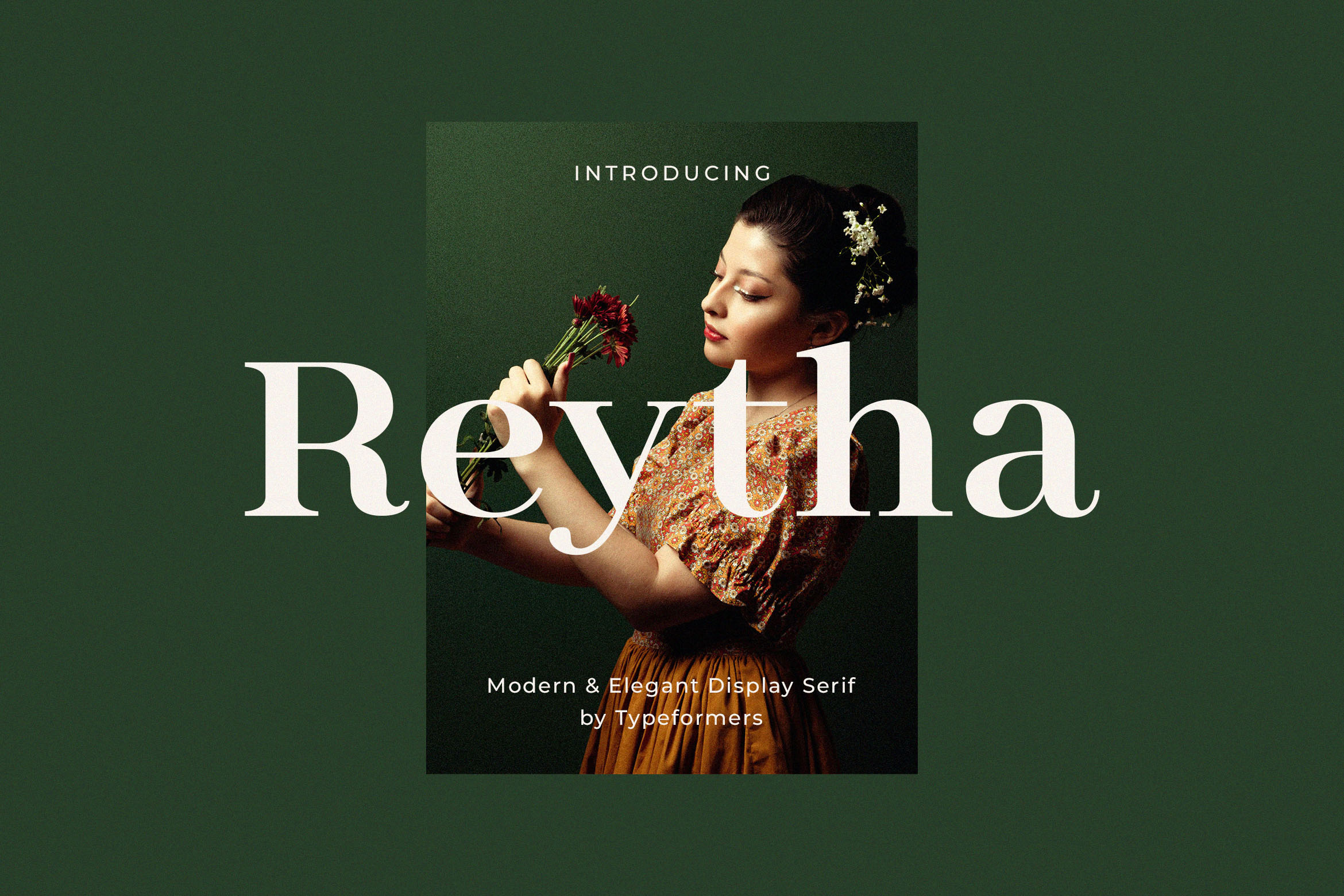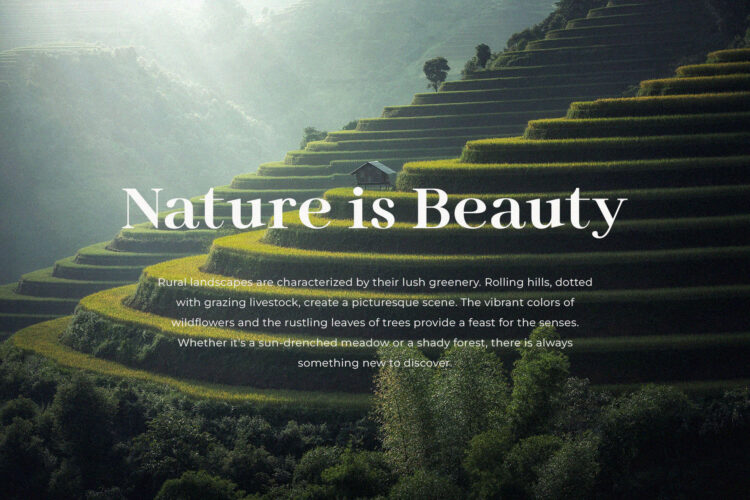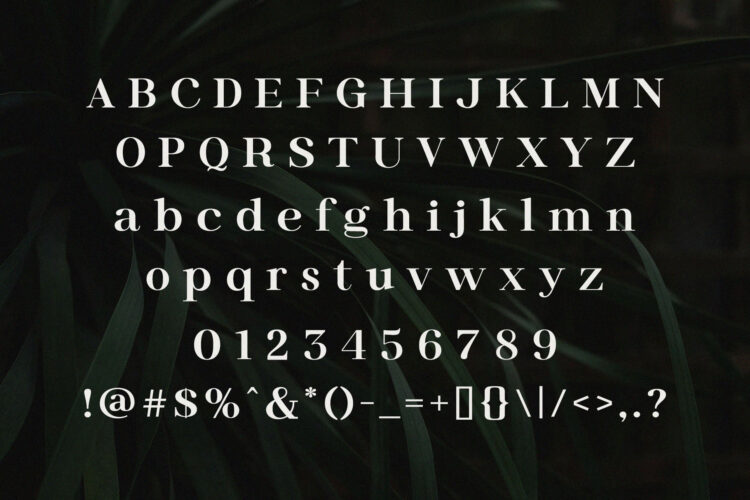
Introducing Reytha – Modern Elegant Serif.
Reytha is a modern and simple font, best used as a display for headings, logos, branding, magazines, product packaging and invitations.
Reytha – Modern Elegant Serif